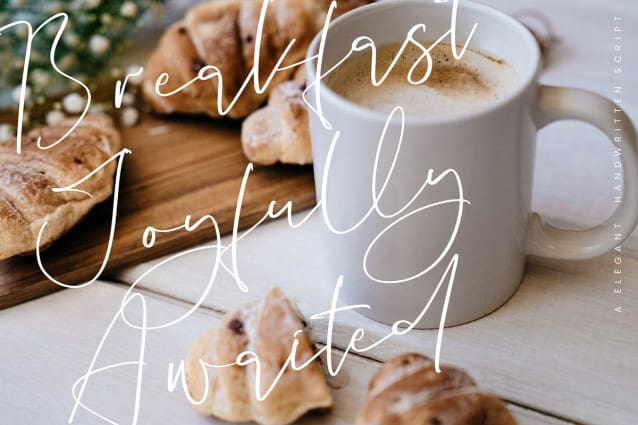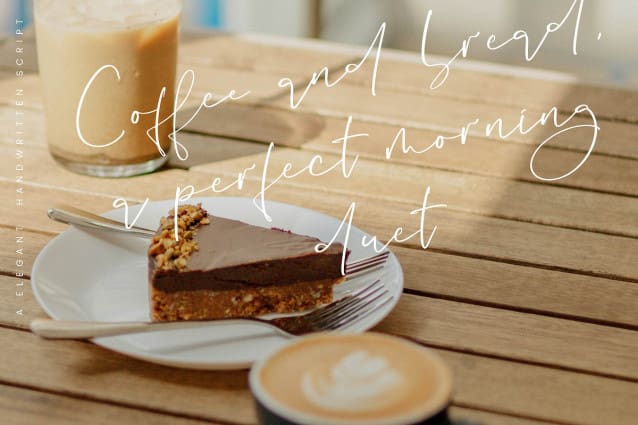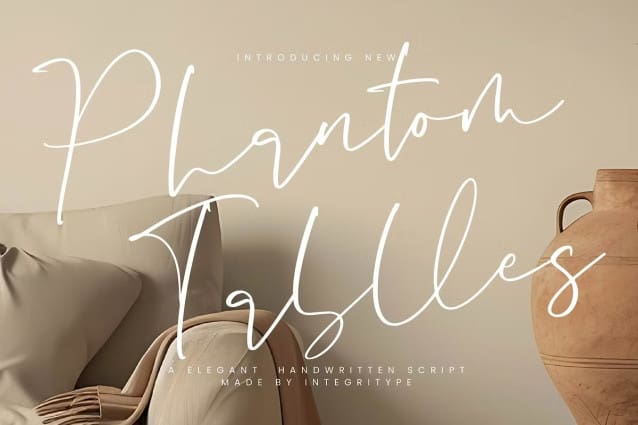
Phantom Tablles Font
Phantom Tablles Font – Handwritten Script Font, from Integritype Studio, perfect for any project like: logos, branding projects, homewares designs, product packaging, mugs, quotes, posters, shopping bags, t-shirts, covers books, business cards, invitation cards, greeting cards, labels, photography, watermarks, special events and all your other luxury projects that require a premium taste.